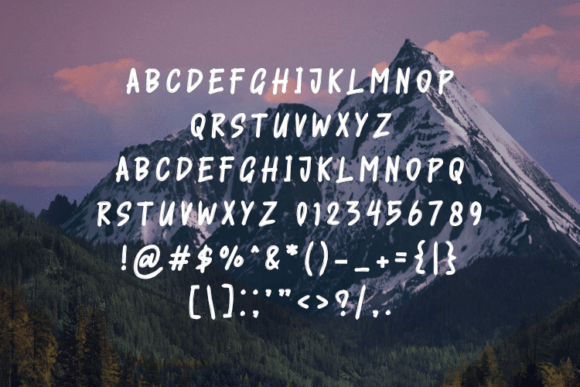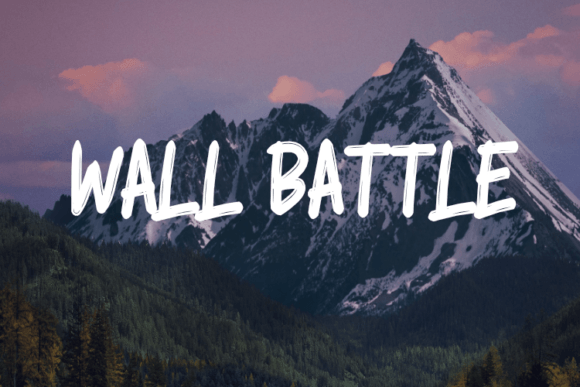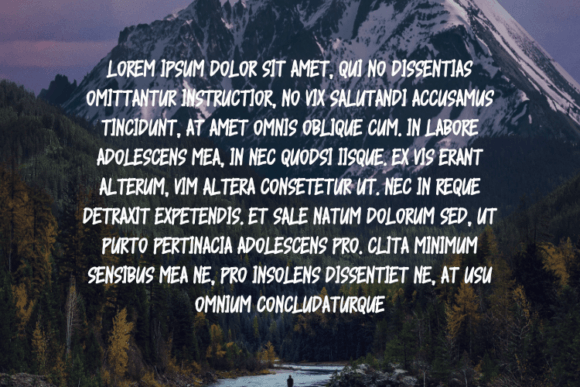
Unlock Endless Design Possibilities with Brush Type Font
Are you tired of using the same old fonts for your design projects? Look no further than Brush Type, an extraordinarily versatile font that is perfect for apparel design, crafting, and more. With its universal compatibility and seamless integration with any design software, Brush Type is the ultimate design companion for creatives.
What is Brush Type Font?
Brush Type is a unique and adaptable font that is designed to elevate your design projects. Its versatility makes it perfect for a wide range of styles and aesthetic preferences, from casual and playful to bold and edgy. Whether you’re designing t-shirts, sweatshirts, or other apparel, Brush Type is the perfect choice.
Key Features of Brush Type Font
- Universal Compatibility: Brush Type seamlessly integrates with any design software, making it easy to use across all platforms.
- Versatility: Brush Type is perfect for a wide range of design projects, from apparel design to crafting and more.
- Adaptability: Brush Type suits a wide range of styles and aesthetic preferences, making it perfect for any design project.
Benefits of Using Brush Type Font
Using Brush Type font can elevate your design projects in many ways. Here are just a few benefits of using this versatile font:
- Endless Design Possibilities: With Brush Type, you can create unique and creative designs that stand out from the crowd.
- Professional-Looking Designs: Brush Type is designed to create professional-looking designs that are perfect for business or personal use.
Design Ideas Using Brush Type Font
Brush Type font is perfect for a wide range of design projects. Here are just a few ideas to get you started:
- T-Shirt Design: Create custom t-shirt designs using Brush Type font.
- Sweatshirt Design: Design custom sweatshirts using Brush Type font.
- Crafting: Use Brush Type font for crafting projects, such as making signs or cards.
- Social Media Graphics: Create social media graphics using Brush Type font.
In conclusion, Brush Type font is a versatile and adaptable font that is perfect for designers and crafters. With its universal compatibility, ease of use, and endless design possibilities, Brush Type is the ultimate design companion. Whether you’re designing apparel, crafting, or creating social media graphics, Brush Type font is the perfect choice. So why wait? Download Brush Type font today and unlock limitless design possibilities!